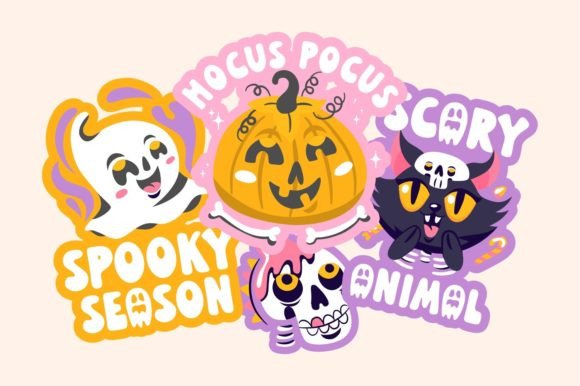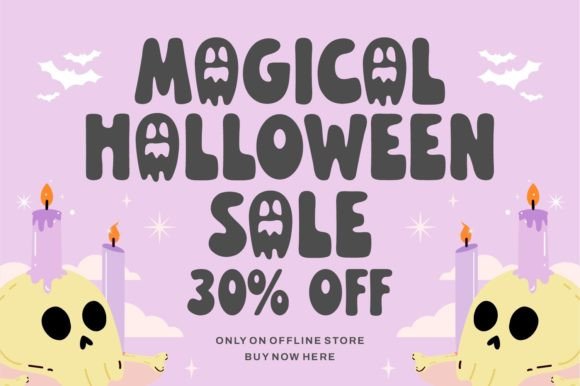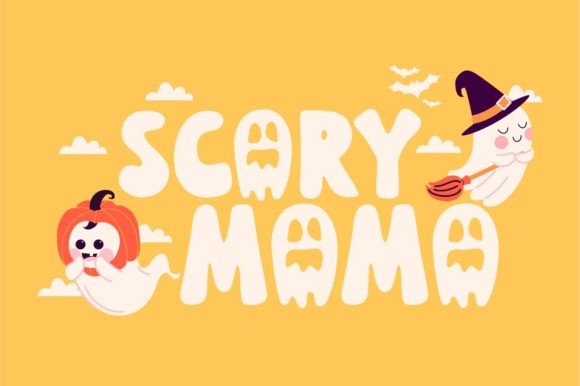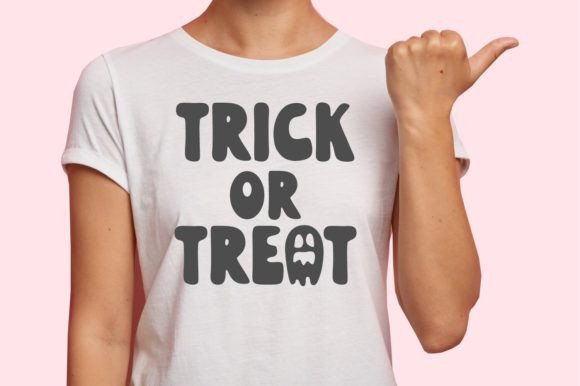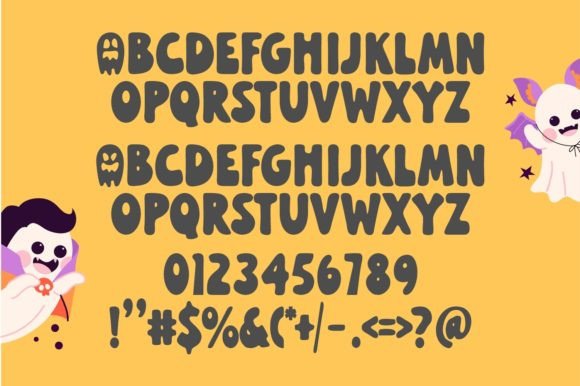
Introduction to Haunted Sunday Font Font
Fonts play a crucial role in design, and the Haunted Sunday Font font is a typeface that brings both character and versatility to any project. Whether you’re working on a branding project, a website, or a print design, the Haunted Sunday Font font offers a unique style that can elevate your work.
Immerse yourself in the intriguing charm of the Haunted Sunday font.
A striking handwritten typeface that perfectly blends playful cuteness with a dash of eerie allure, making it an ideal fit for projects that contain an element of the occult Haunted Sunday unfolds beautifully across logos, personalized stickers, eclectic t-shirts, and Halloween-themed crafts.
Key Features of Haunted Sunday Font Font
Why Choose Haunted Sunday Font Font?
The Haunted Sunday Font font is more than just a typeface – it’s a design tool that helps you communicate your message with style and clarity. Its unique character set and versatile design make it suitable for a wide range of applications, from elegant invitations to bold headlines.
With its carefully crafted letterforms and balanced proportions, the Haunted Sunday Font font ensures readability and visual appeal across all mediums.
What makes Haunted Sunday Font font special?
The Haunted Sunday Font font stands out with its unique design, exceptional readability, and versatility across various design applications.